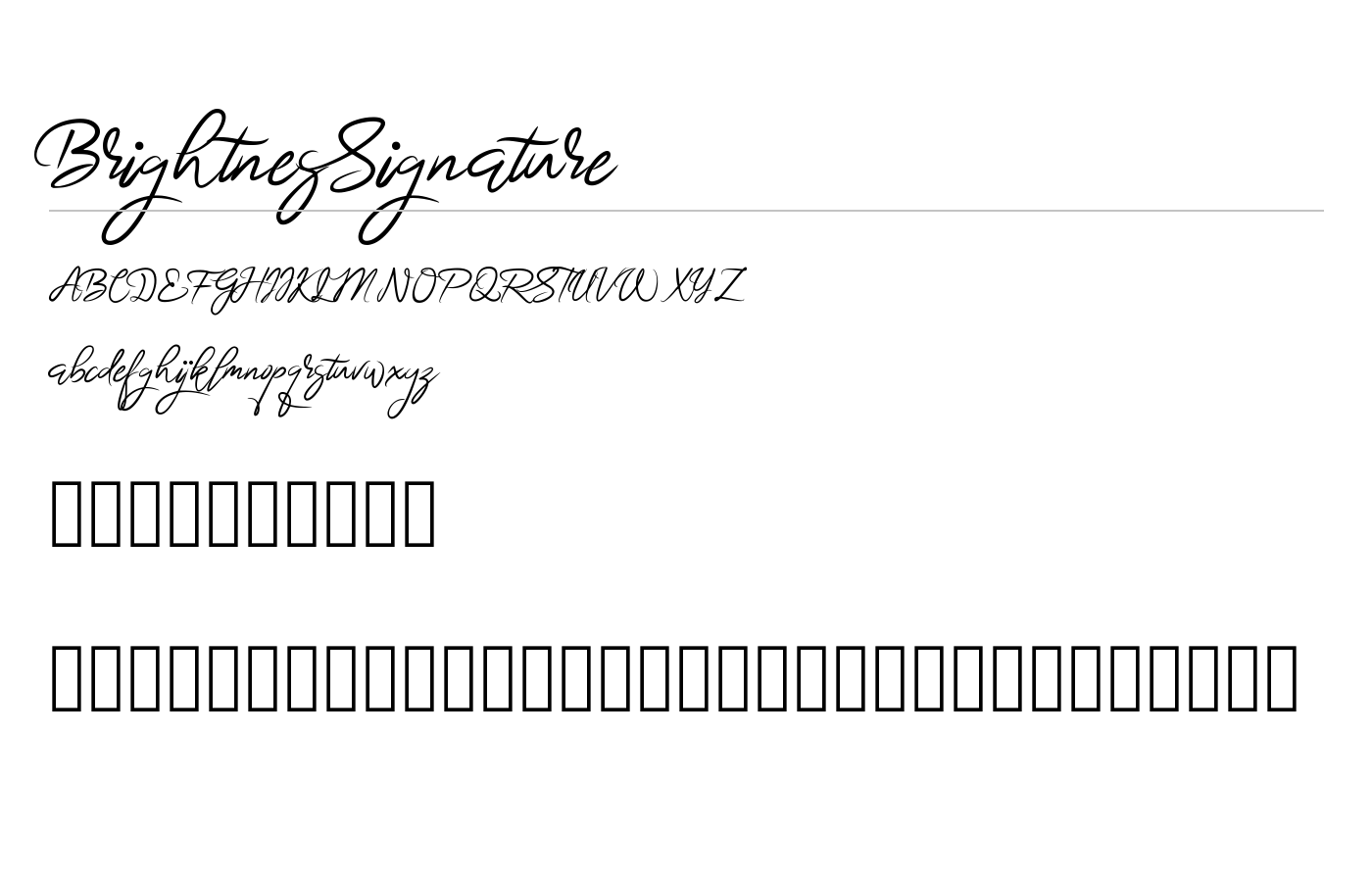
BrightnesSignature is an elegant, handwritten script font that mimics natural, flowing handwriting with smooth, slender strokes and graceful curves. Its light weight and airy structure give it a refined and personal feel, making it perfect for branding, invitations, and signature-style logos where sophistication and individuality are key. This font adds a stylish, modern touch while maintaining a warm, approachable character.
BrightnesSignature Font
About BrightnesSignature Font